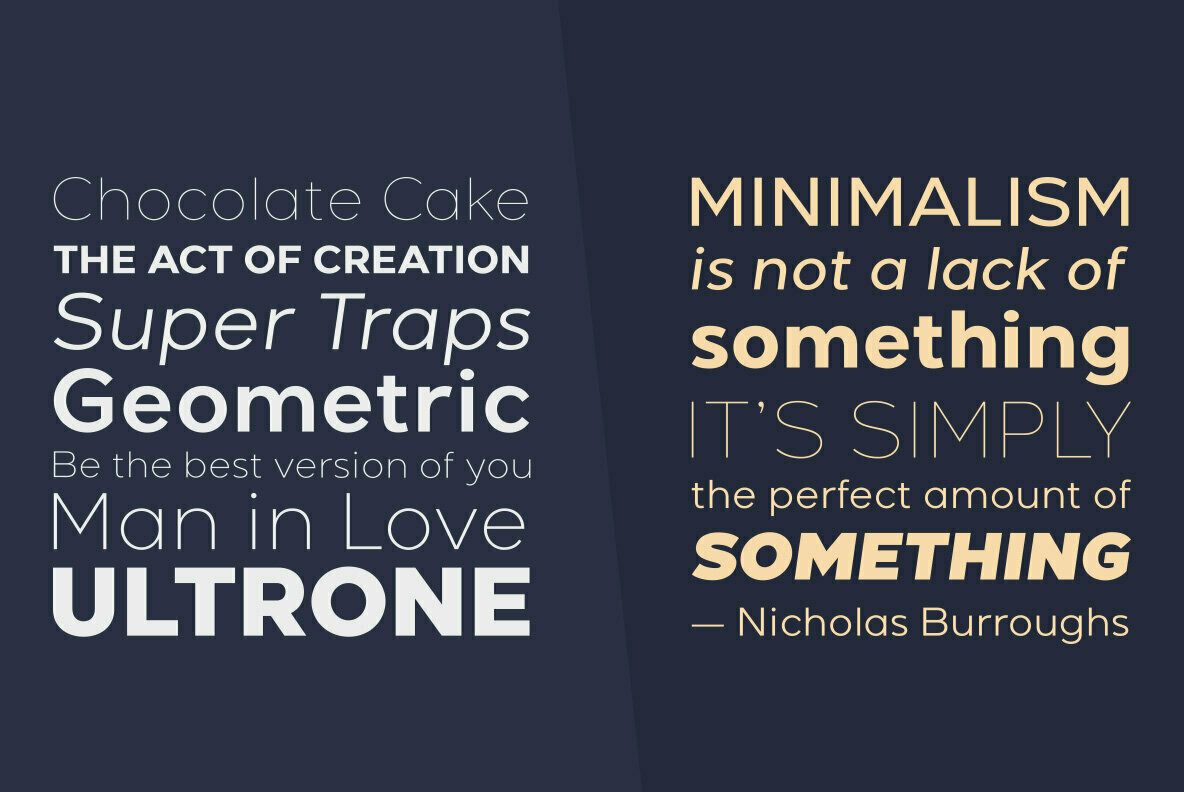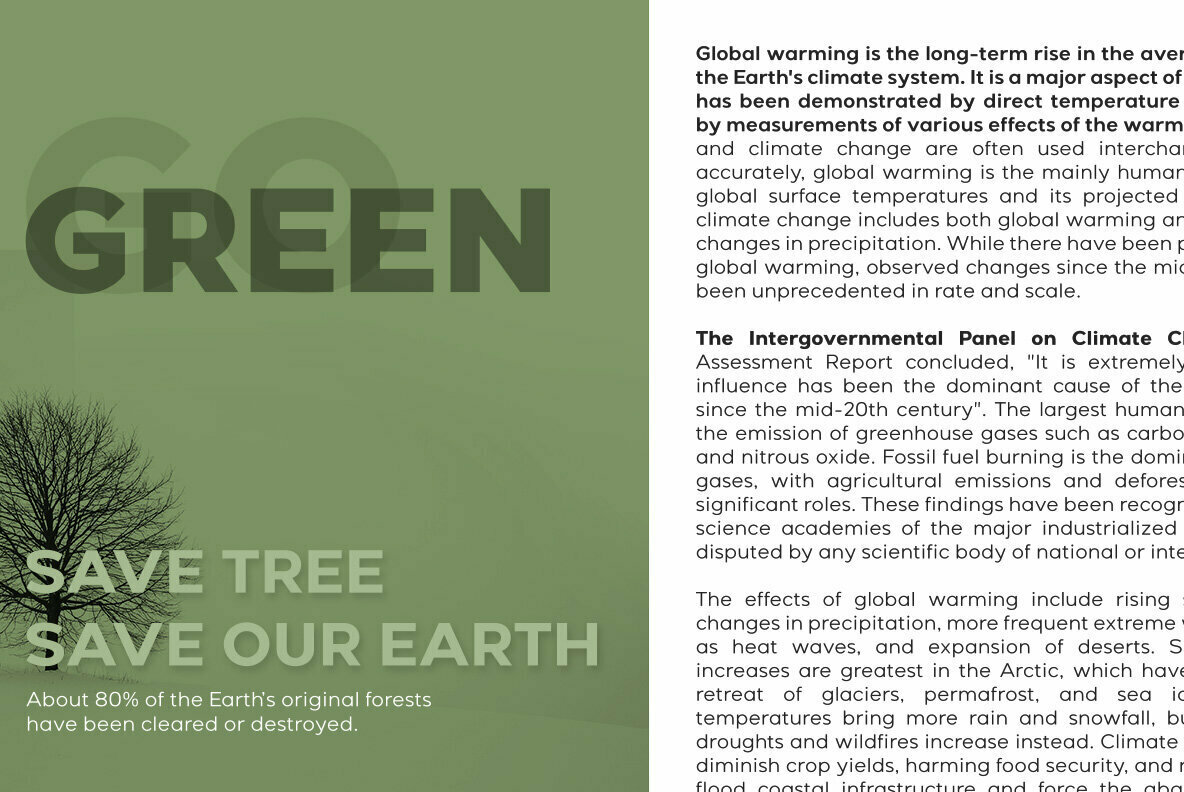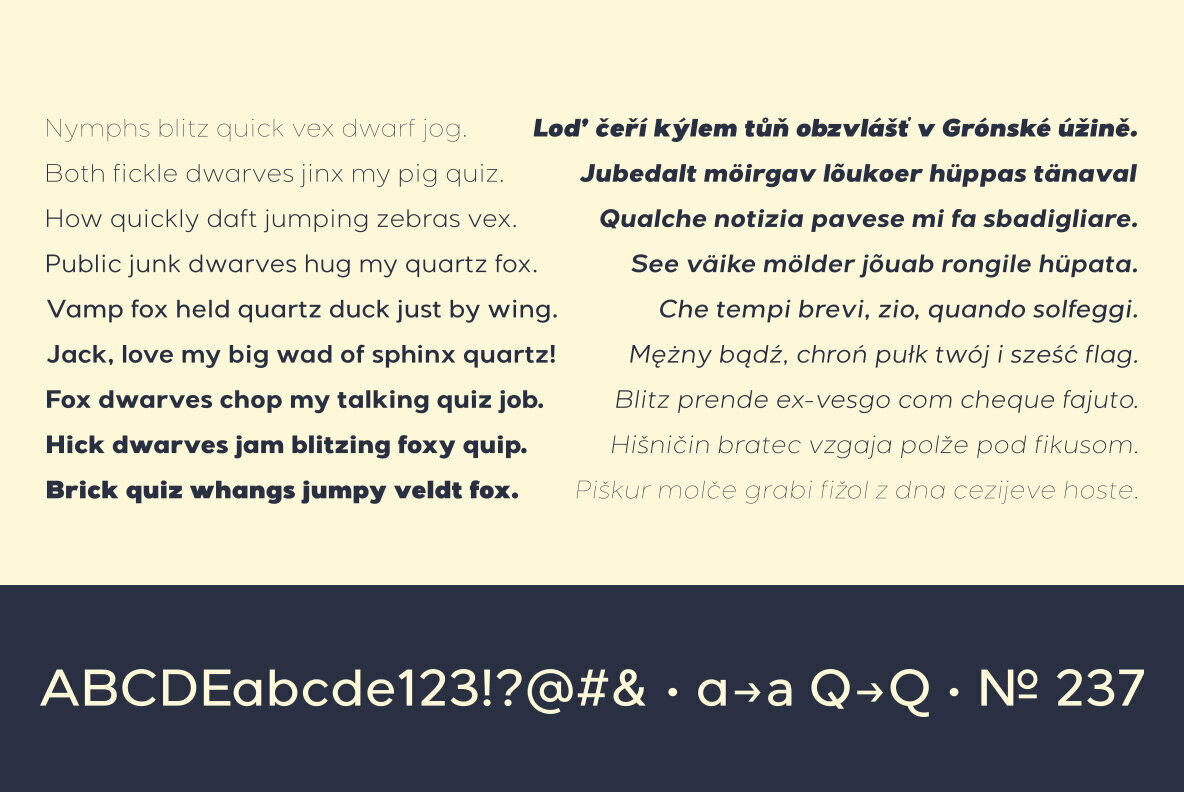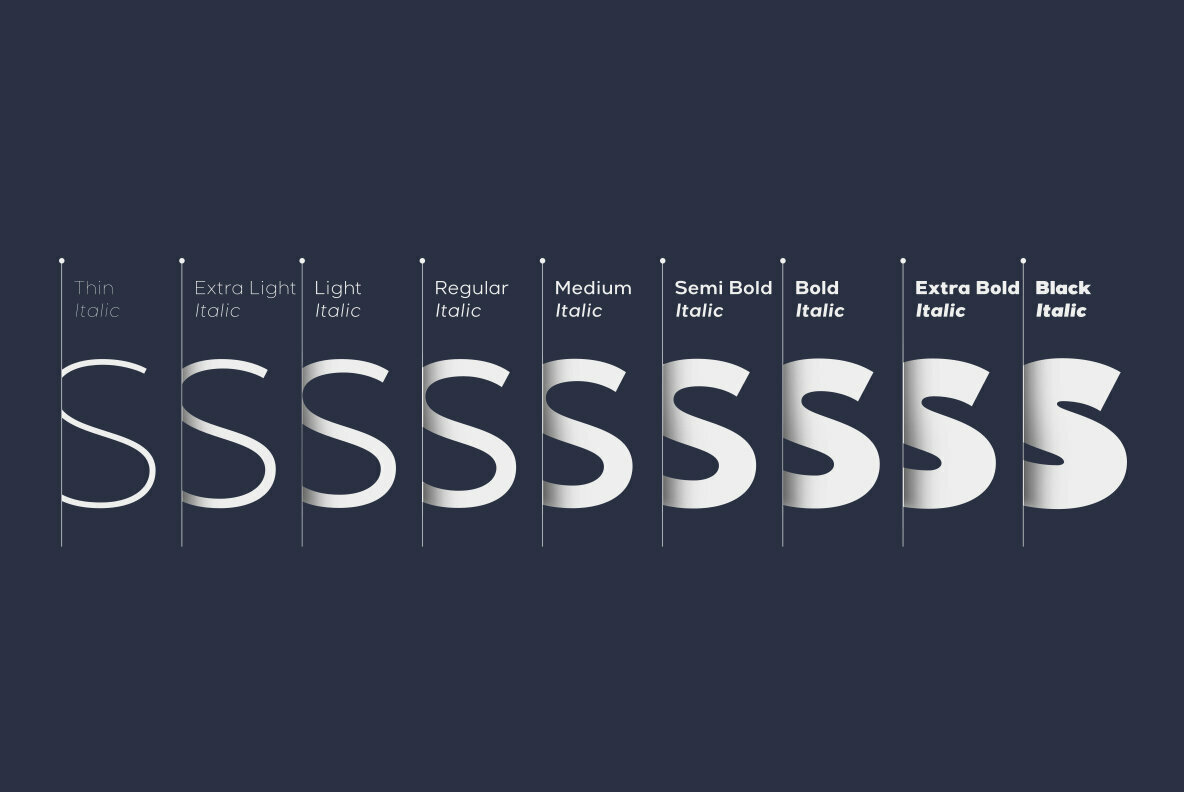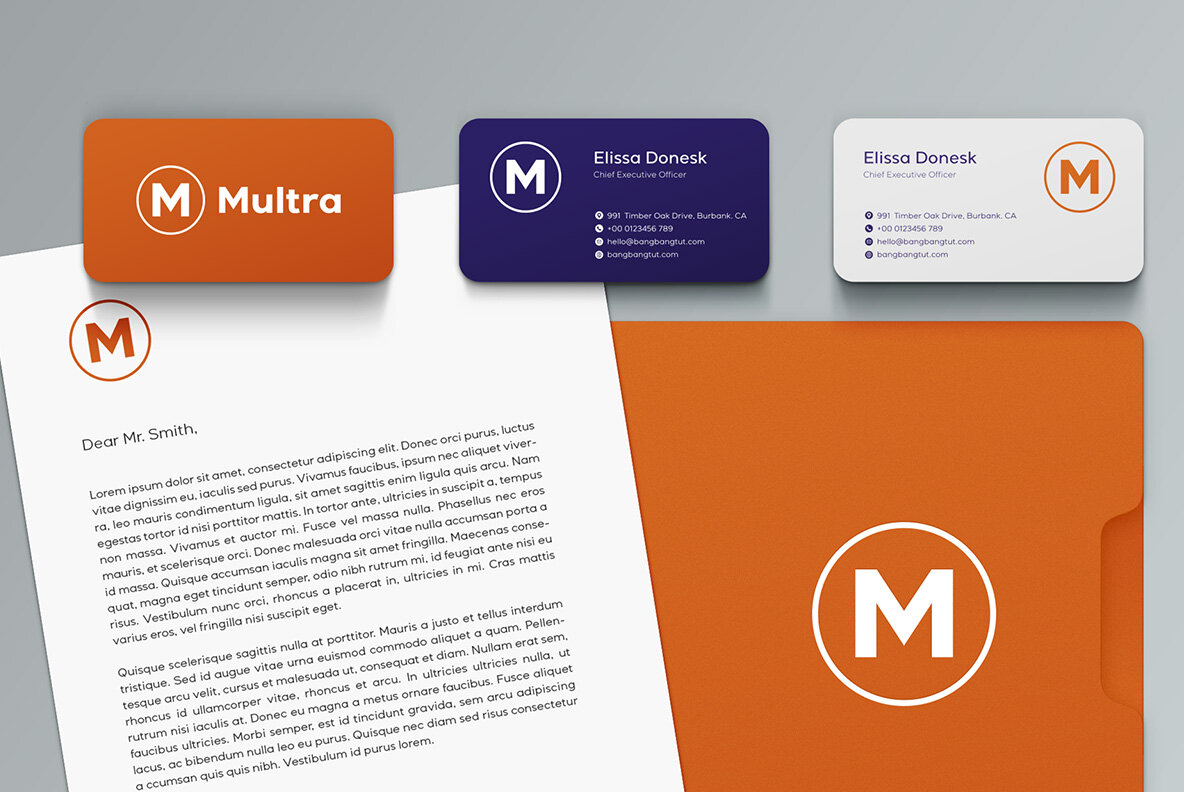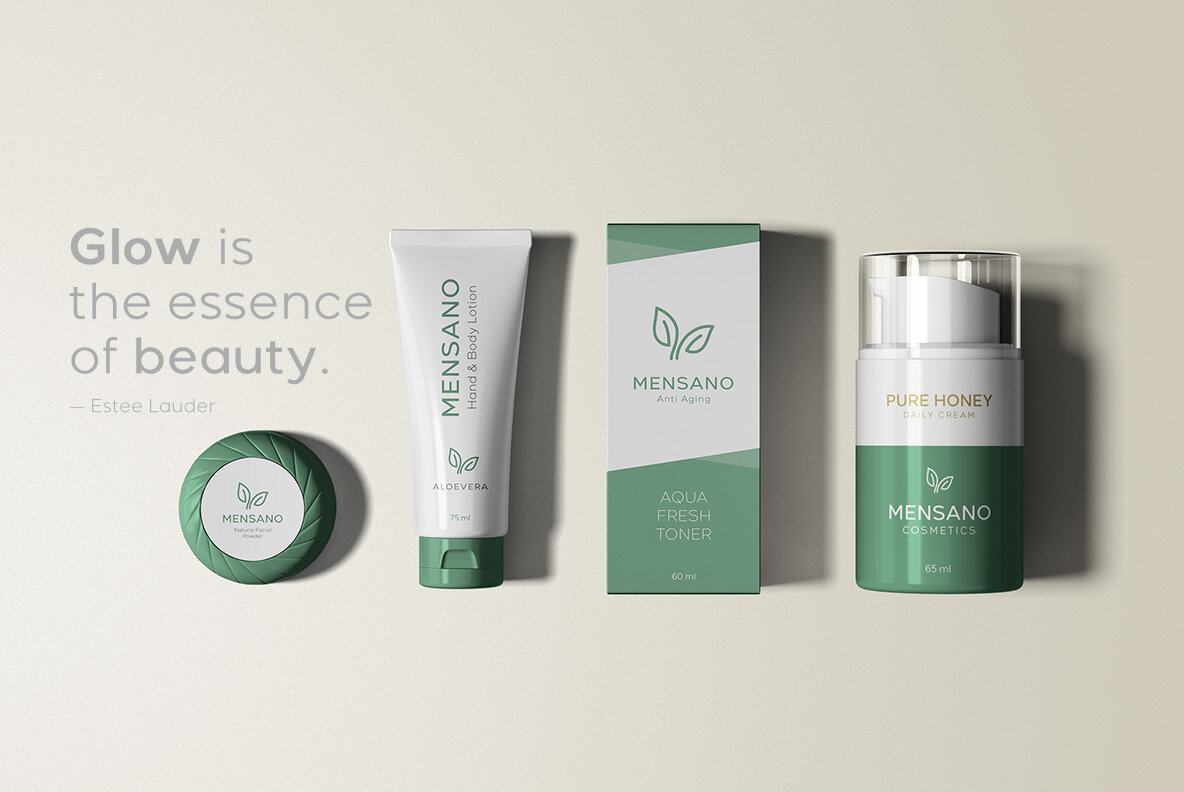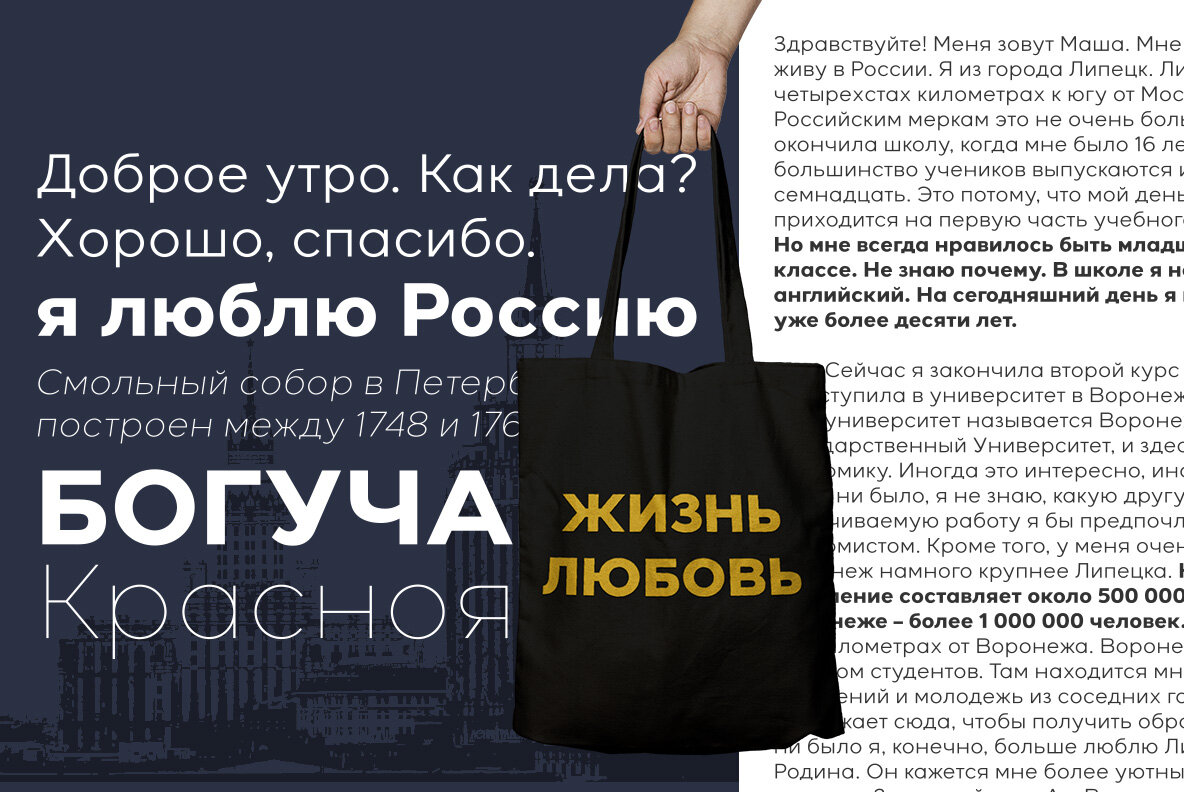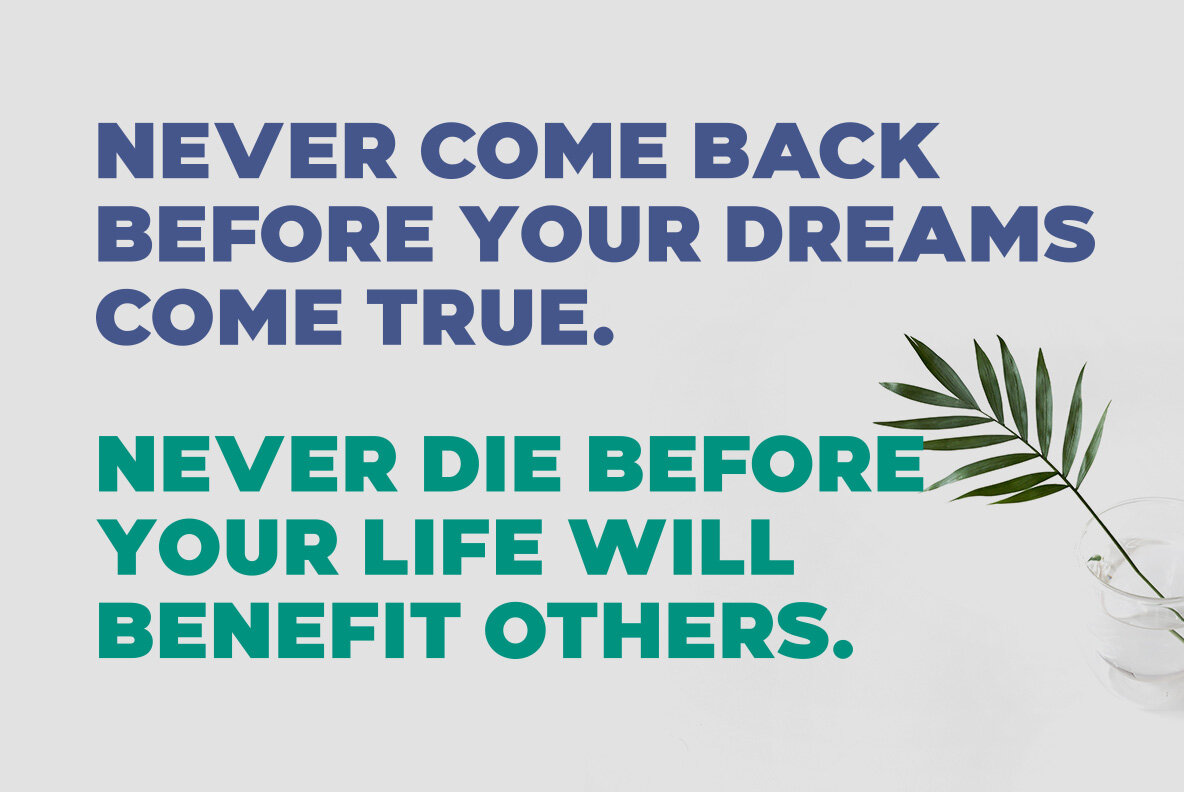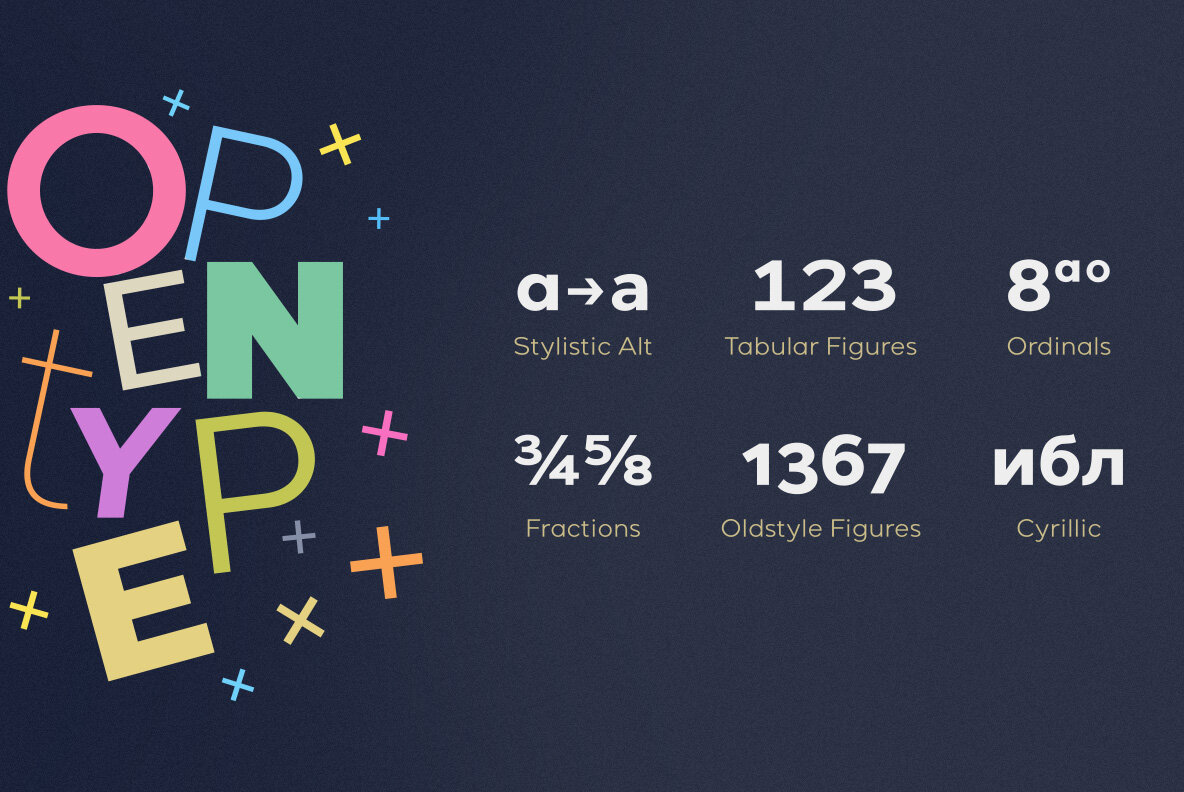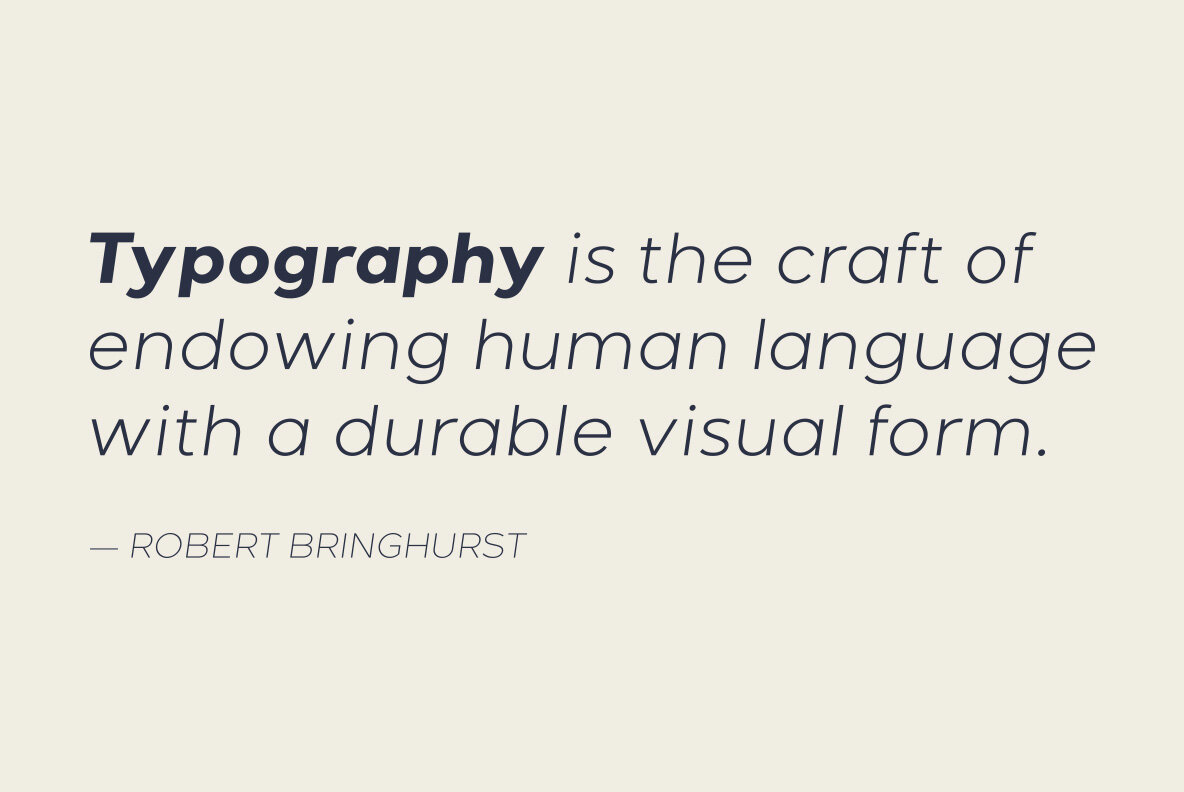
Giga Sans Font
Giga Sans is a modern sans serif font with a clean and elegant geometric touch. Consists of 9 uprights and 9 matching italics ranging from Thin to Black.
Besides being suitable for strong headlines, Giga Sans can also be used for long paragraphs such as news content, magazines, brochures, catalogs, logotypes and more.
Giga Sans also has OpenType features such as stylistic alternates, old style figures, tabular figures, fractions, localized forms, superscripts, subscripts and also supports Cyrillic alphabets.
There is no doubt that Giga Sans will make it easier for you to mix and match typography in graphic design, website, motion graphics etc.